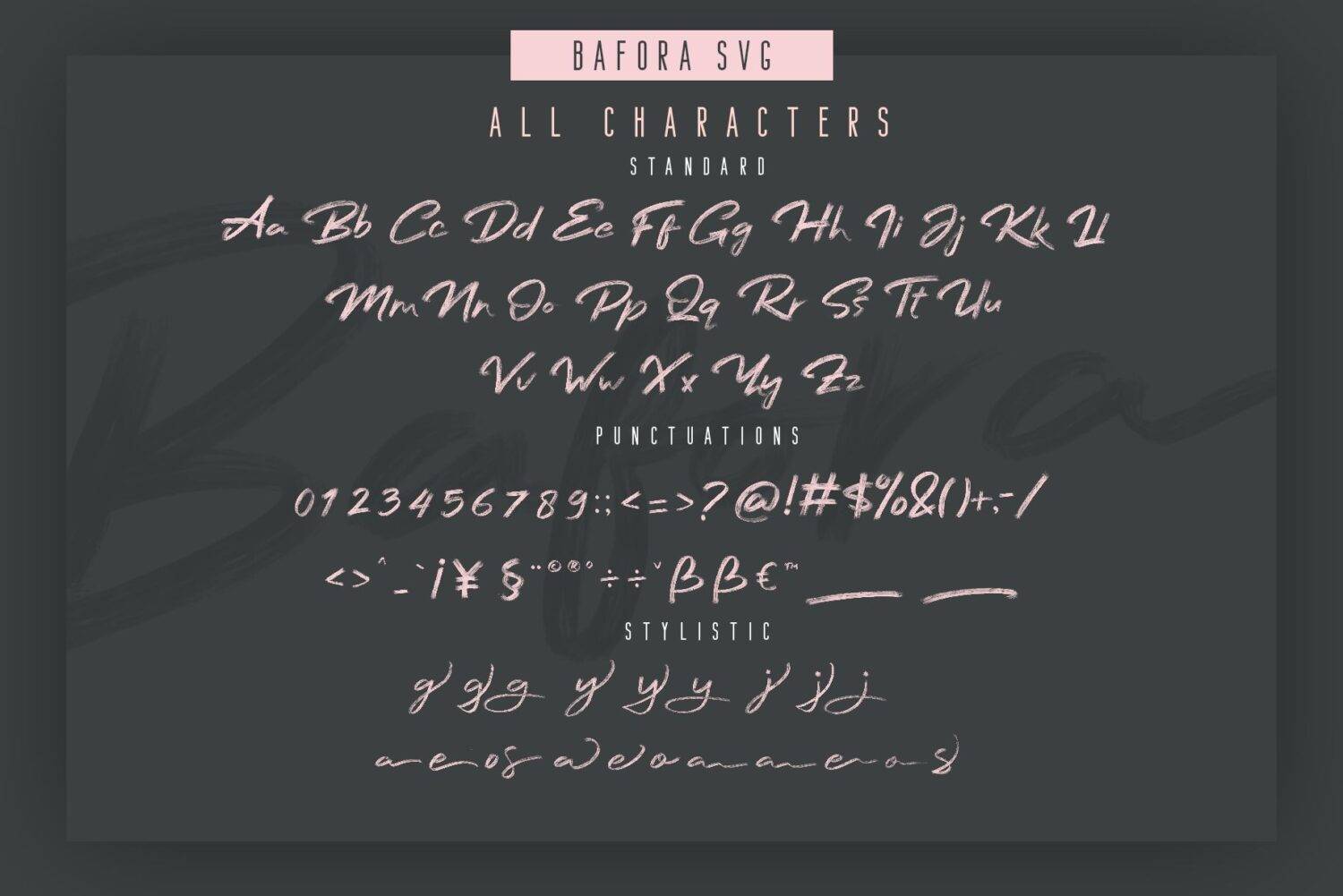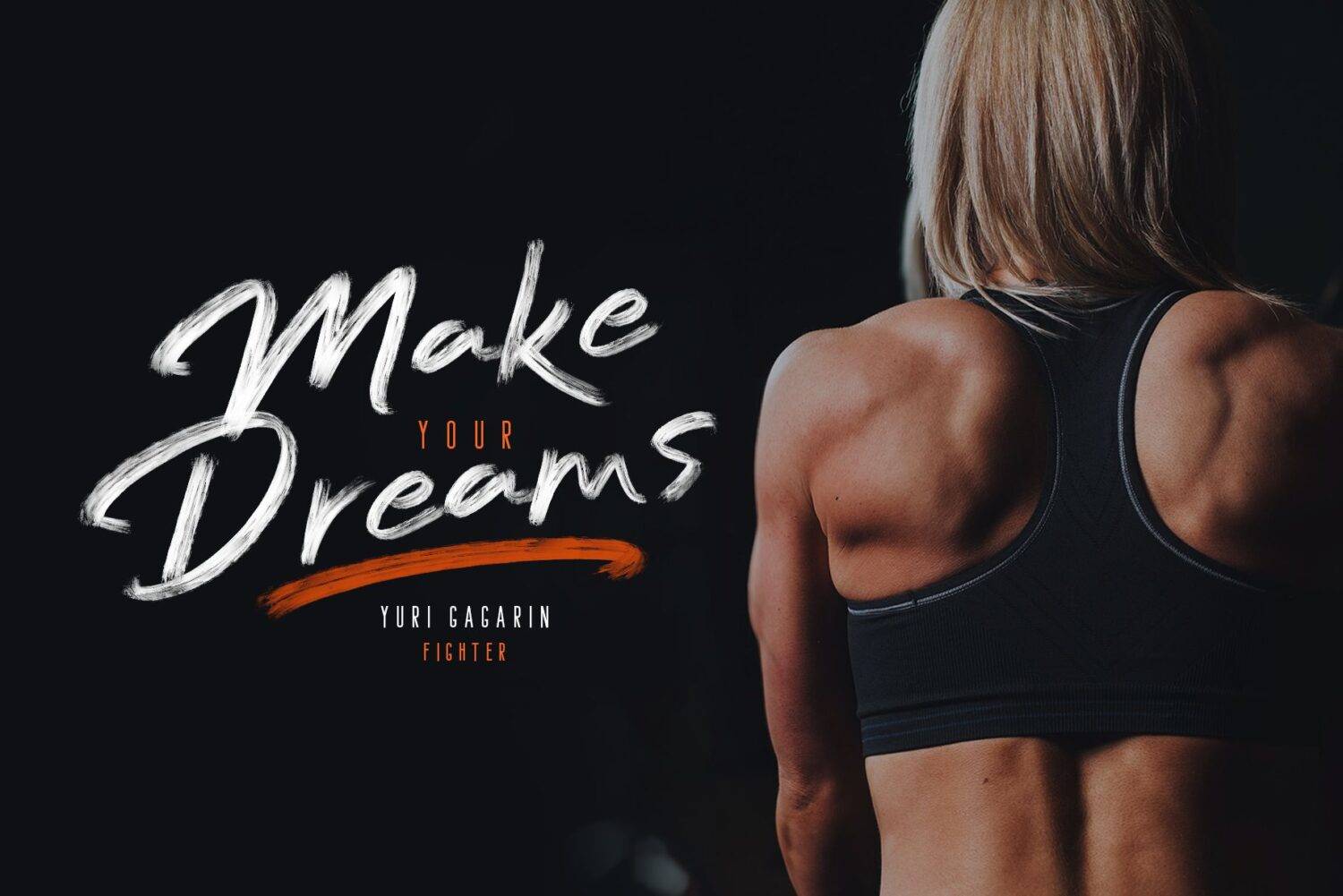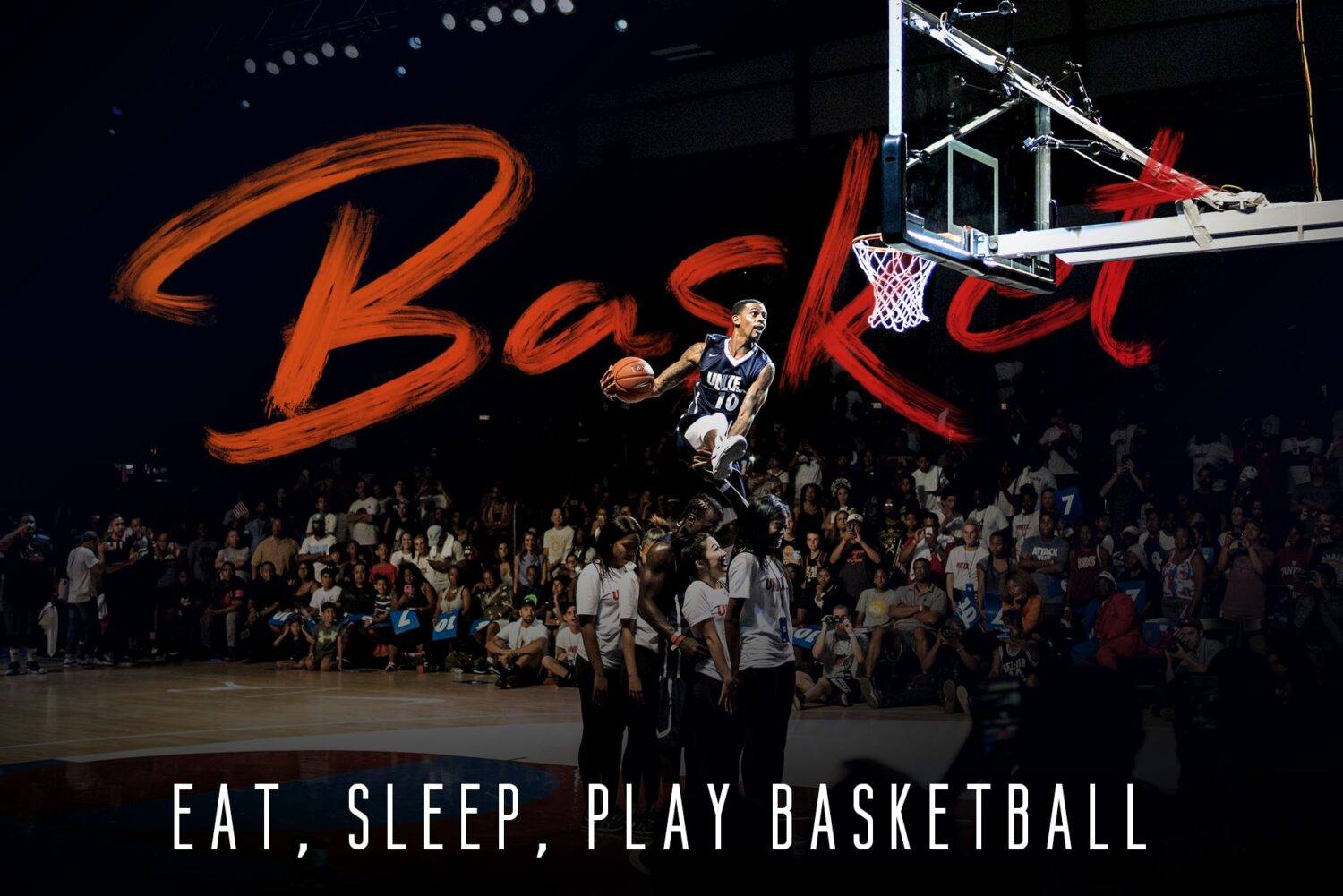
Bafora is a dynamic handwritten script font featuring bold, textured strokes that mimic natural brush lettering with a slightly rough and expressive edge. Its casual yet artistic style gives it a personal, creative feel, making it ideal for branding, posters, and designs that want to convey creativity and authenticity. This font works especially well in headlines and logos where a handcrafted, energetic look is desired.
Bafora Font
About Bafora Font